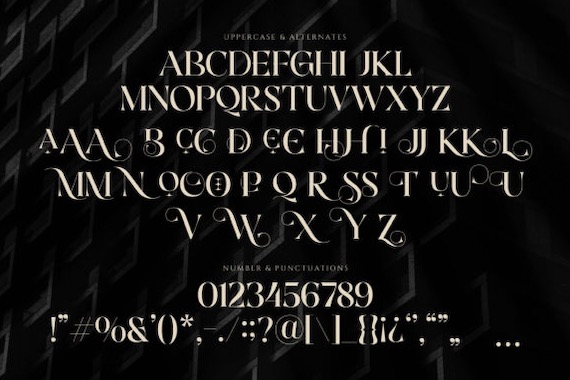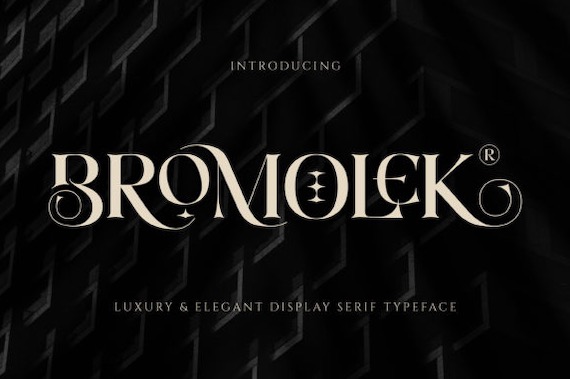
Bromolek Font is a classy and luxurious serif typeface that was created and shared by Almarkhatype. It features impressive characters, alternates, and ligatures to smoothly link letters. This serif font is suitable for designing templates, brochures, videos, advertising branding, logos, and more. Moreover, Bromolek Font is very perfect for adding a unique twist to word-mark logos, monograms, or pull quotes. This font is PUA encoded, which means you can access all of the glyphs and swashes with ease!
Bromolek Serif Font